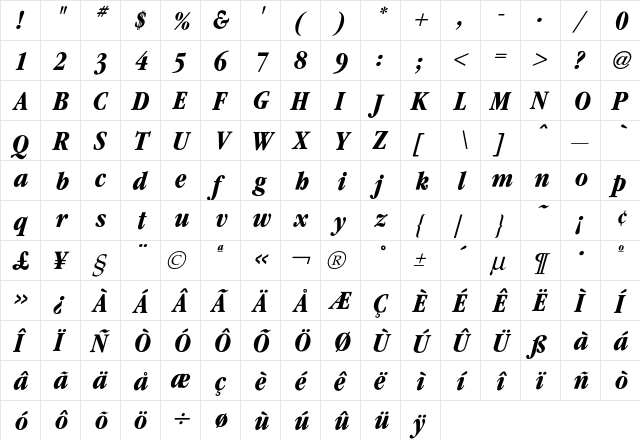
Garamond CondBoldItalic Font Preview
| Style | CondBoldItalic |
Design Context for Garamond Typeface
Garamond offers clean, dependable letterforms without strong stylistic allegiance, making it a practical choice for designers who need flexibility. The dynamic lean of this cut emphasises speed and emphasis in any layout. Its bold stroke weight gives it real presence on the page. Its narrow stance lets it pack a punch even in space-constrained designs.